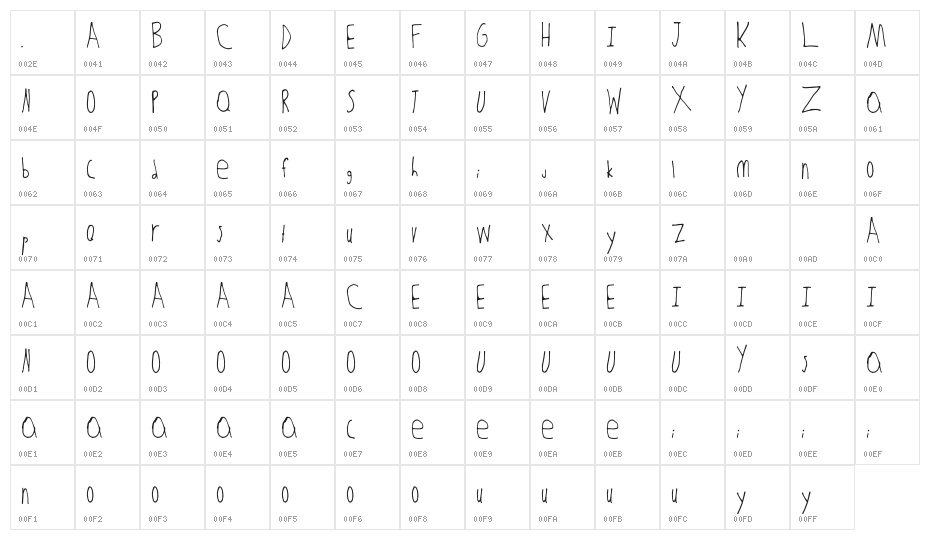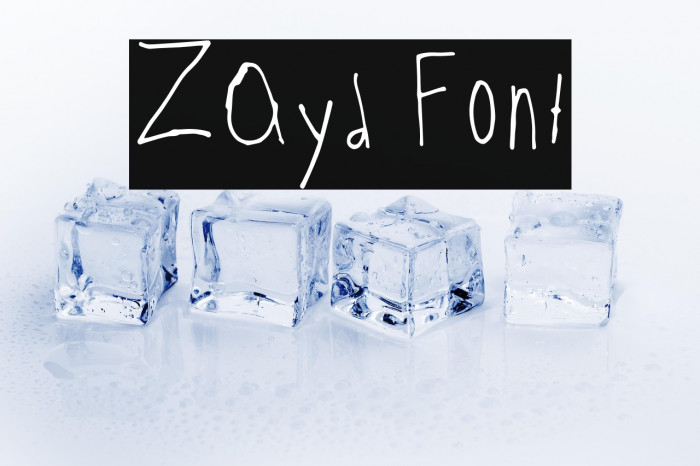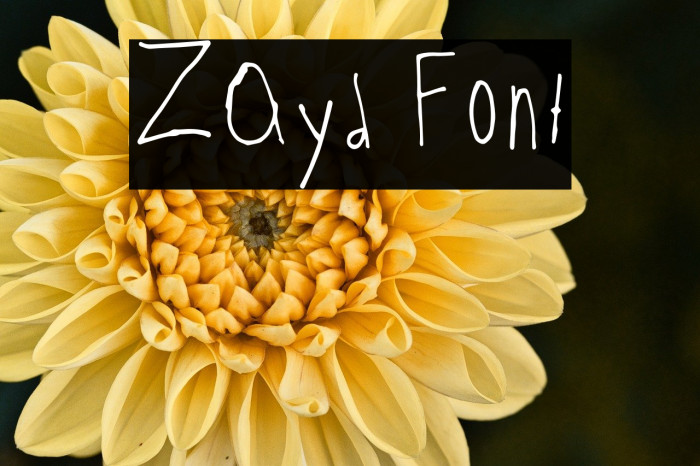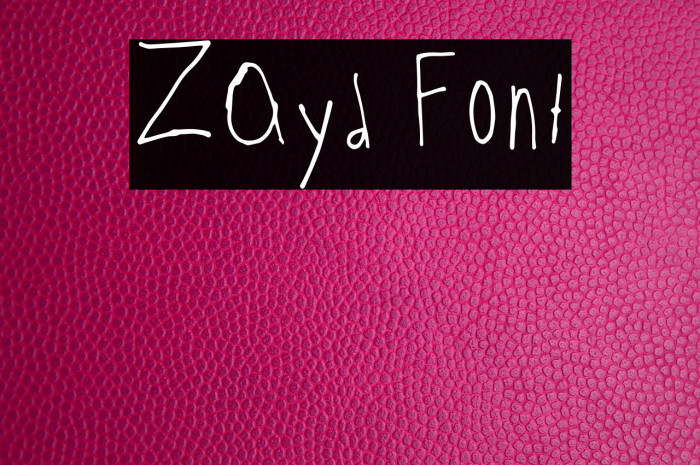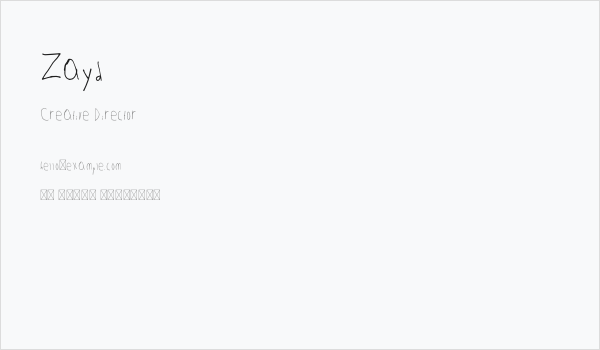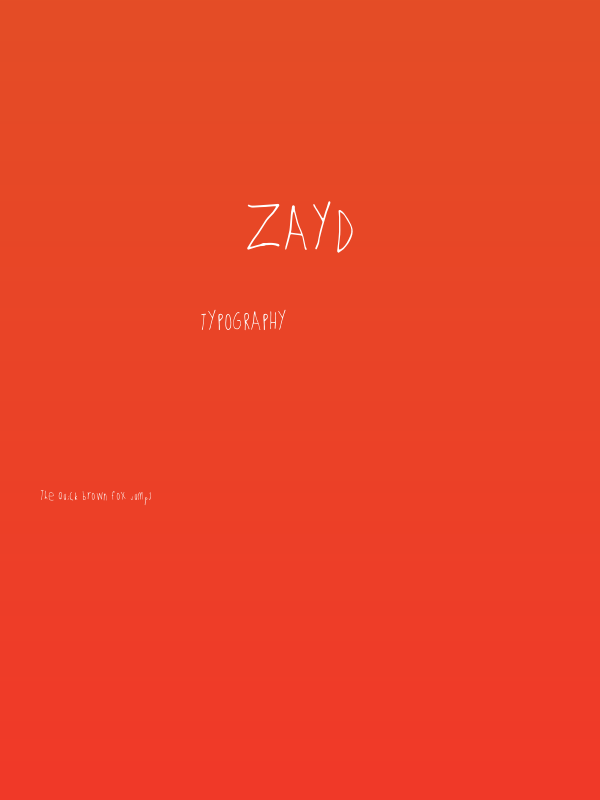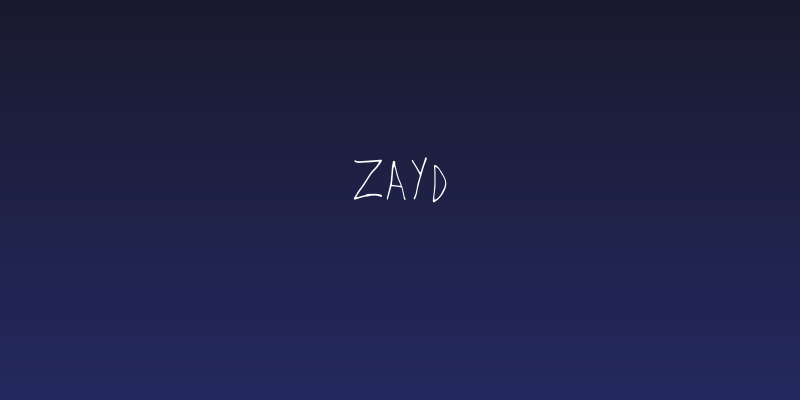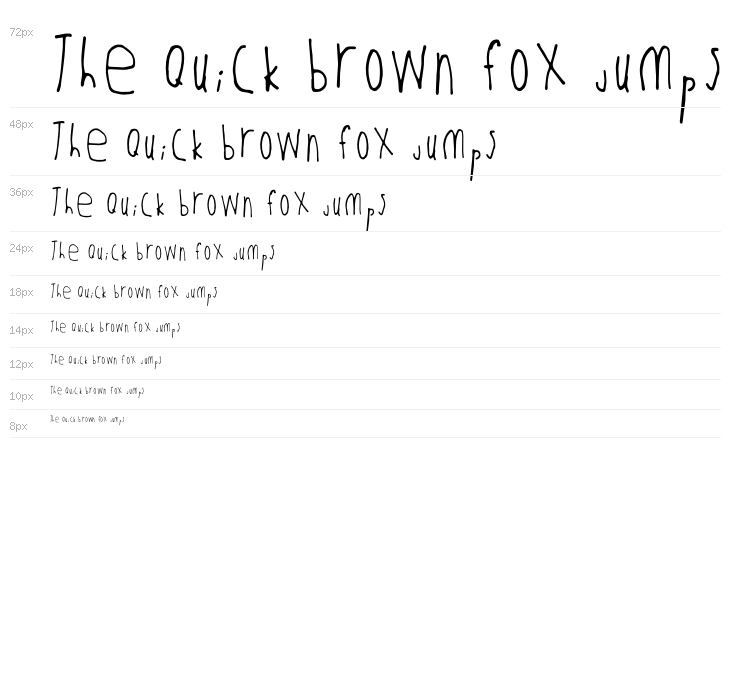
Zayd Font
Zayd Description
This font exhibits a playful and informal handwritten style, characterized by irregular strokes and a casual appearance. The letters are unevenly sized, with a slightly wobbly line quality that adds to its charm. The uppercase and lowercase letters maintain a consistent style, with a noticeable lack of uniformity in height and width, giving it a whimsical feel. The numbers and special characters follow the same informal aesthetic, making the font suitable for creative and lighthearted projects.